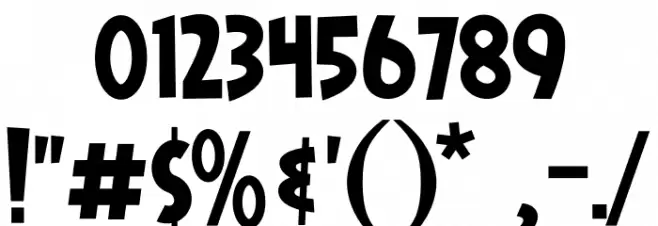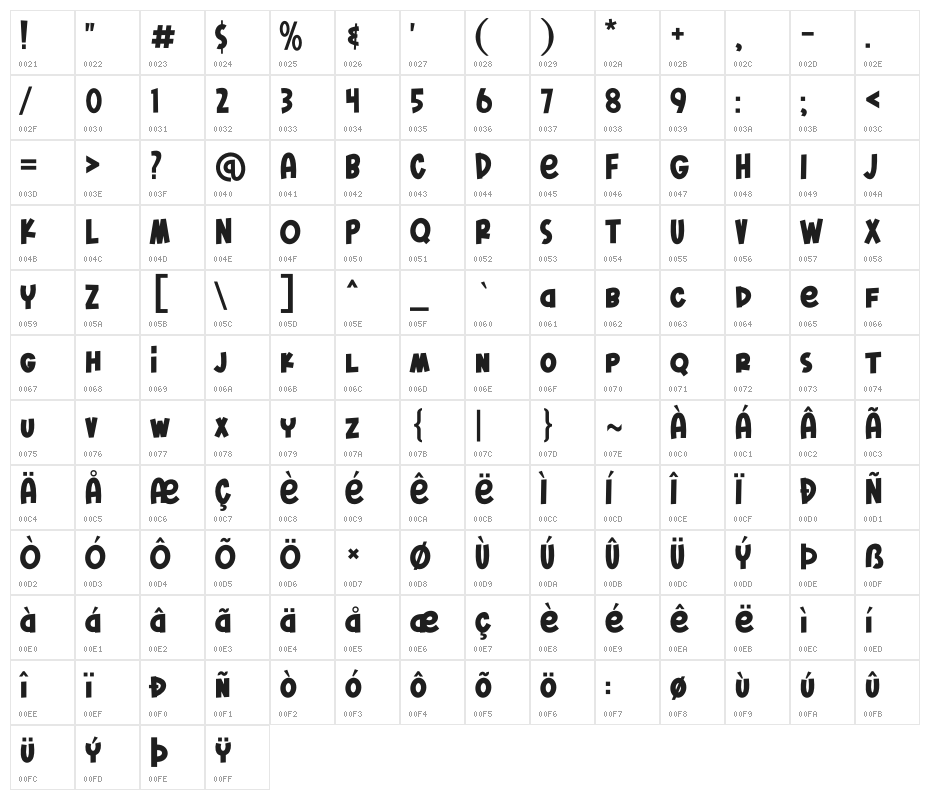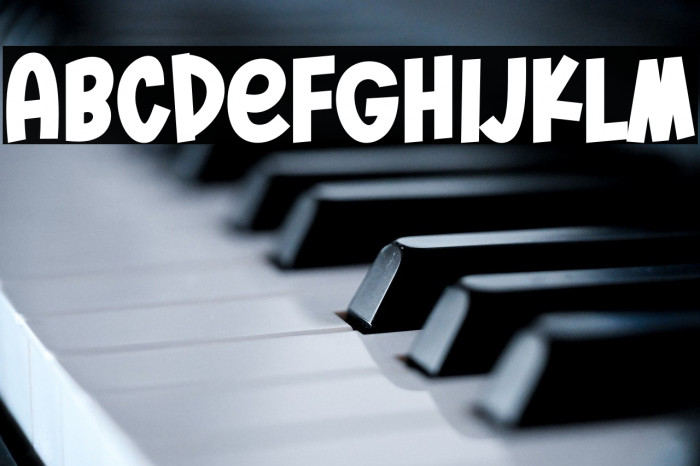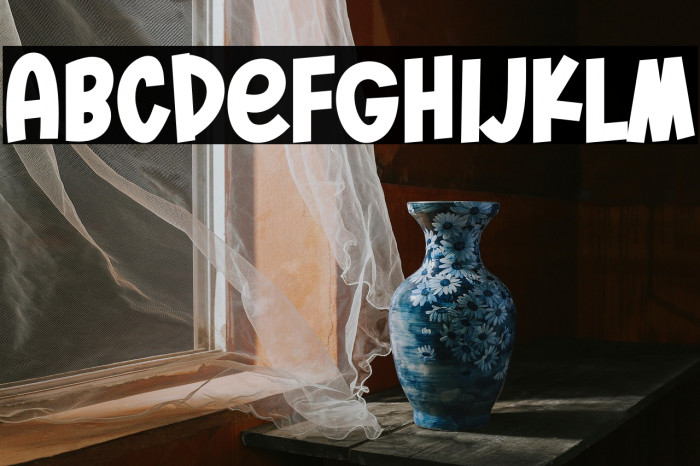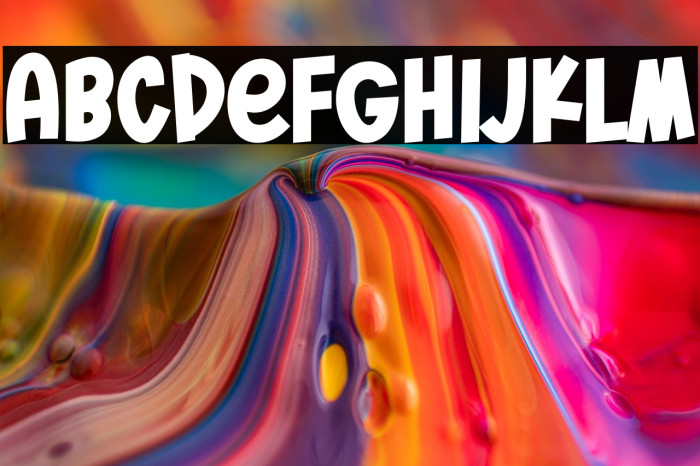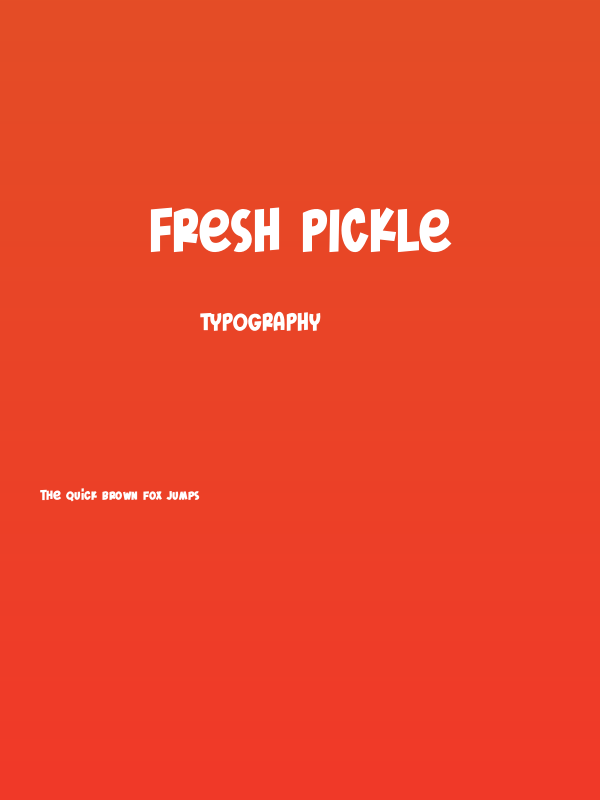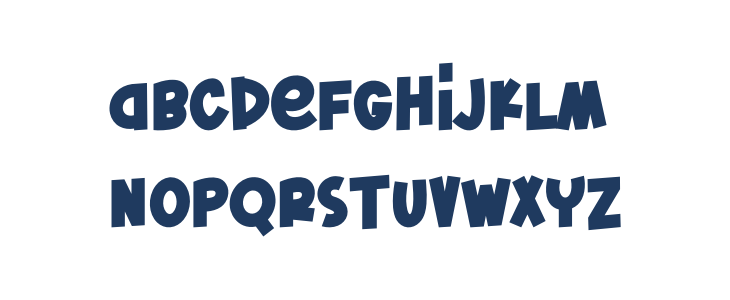
Fresh Pickle Font
Fresh Pickle Description
This font features a bold and playful design, characterized by its thick, uneven strokes and quirky, exaggerated shapes. The letters have a cartoonish and whimsical appearance, with a slightly irregular baseline that adds to its dynamic and energetic feel. The uppercase and lowercase letters maintain a consistent style, with rounded edges and a sense of movement. The numbers and special characters follow the same playful aesthetic, making this font ideal for projects that require a fun and informal touch. Its bold presence ensures readability while maintaining a unique and eye-catching look.
| Overall Style | Playful, Cartoonish |
| Proposed Projects | Ideal for children's books, comic strips, playful branding, and party invitations. |